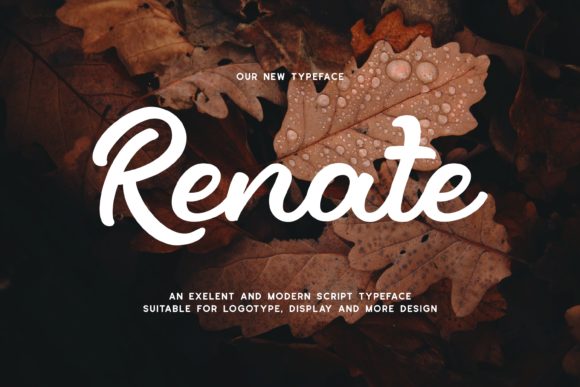
Feast your eyes on the extraordinary Renate Font, a creation by the visionary Fype Co. This captivating display font is a masterpiece, meticulously crafted to ignite your imagination and bring your design aspirations to life.
Renate is not merely a font; it's a gateway to boundless creativity. Its bold and daring strokes possess an undeniable magnetism, drawing attention to your every creation. Whether you're crafting a captivating logo, designing a breathtaking website, or penning an unforgettable love letter, Renate will elevate your words and images to new heights of elegance and impact.
Its versatility is a symphony of possibilities. From classic to contemporary, playful to sophisticated, Renate seamlessly adapts to your artistic vision. Imagine transforming your social media posts into mesmerizing works of art, or giving your presentations a touch of understated brilliance. With Renate, the possibilities are as limitless as your own imagination.
But Renate is more than just a pretty face. It's a font that stirs emotions and sparks connections. Its bold strokes evoke a sense of confidence and boldness, inviting you to make a statement with your designs. And its underlying charm adds a touch of warmth and accessibility, ensuring that your message resonates with your audience.
Whether you're a seasoned designer or just starting your creative journey, Renate is the perfect companion to guide you along the path of artistic excellence. Its user-friendly nature makes it a joy to use, even for beginners. So, embrace the allure of Renate Font today and unlock the boundless potential of your designs!